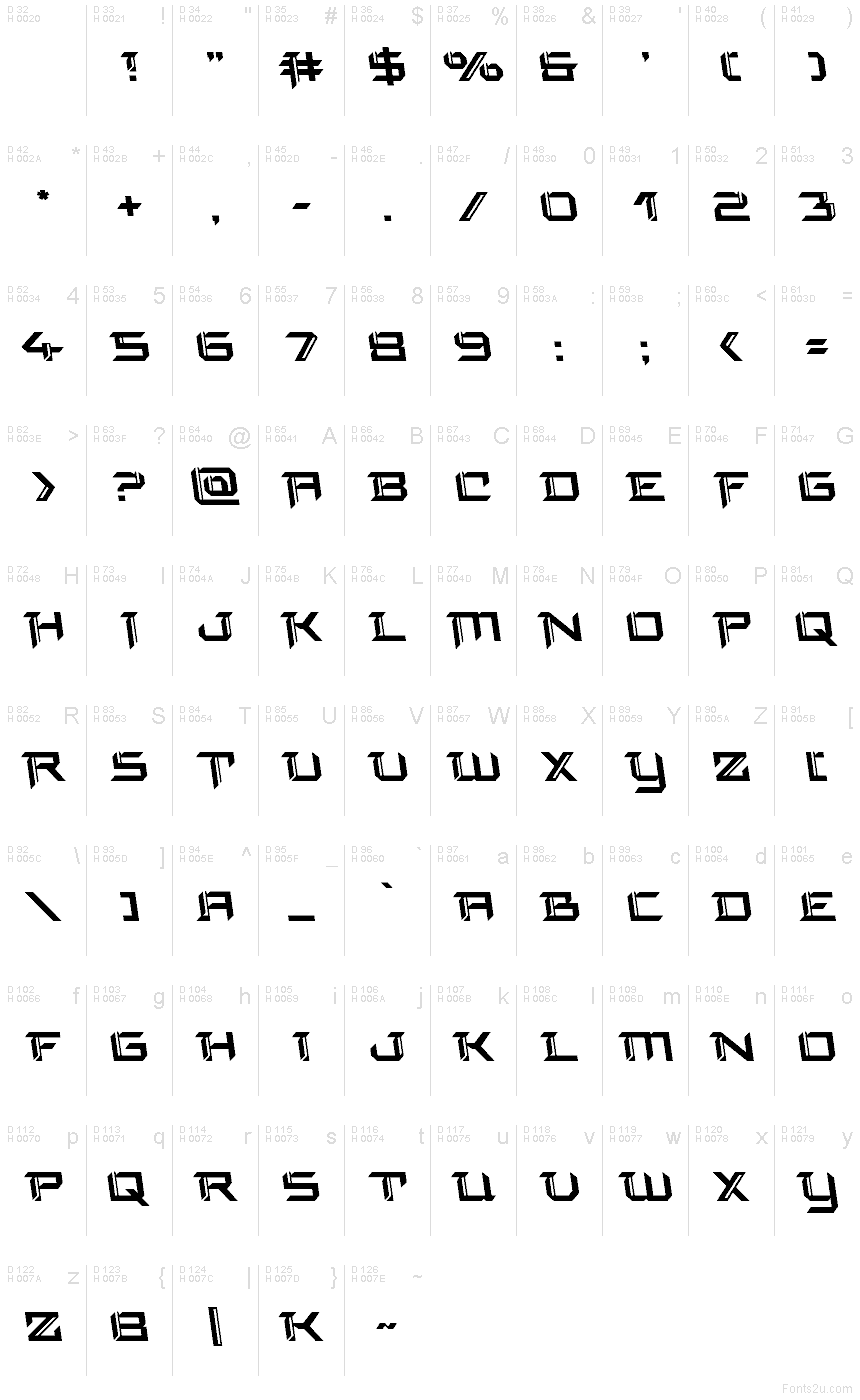
Final Front Semi-Leftalic
Final Front Semi-Leftalic font by Iconian Fonts is a gothic modern typeface with an expanded width. Angular and geometric, it instantly stands out with sharp elements that convey a futuristic and aggressive aesthetic. The font makes a strong visual impact through its unique design that balances between contemporary styles.
Use this free display font to bring attention to poster titles, headlines, magazine covers, video game designs, logotype creation, music concert announcements and tickets. It works also for print-design such as brochure covers or internal pages inside of catalogs, while it's likewise suitable for web-design projects.